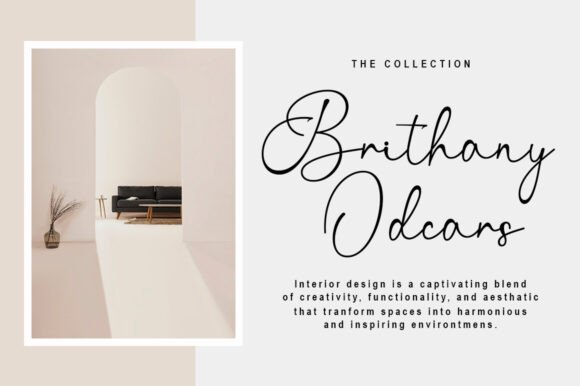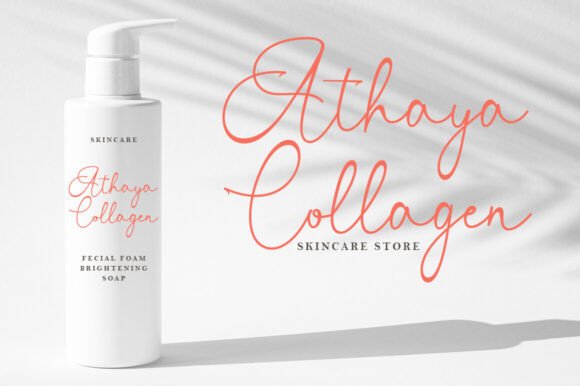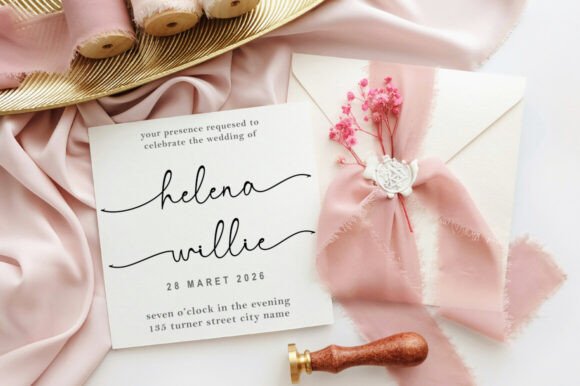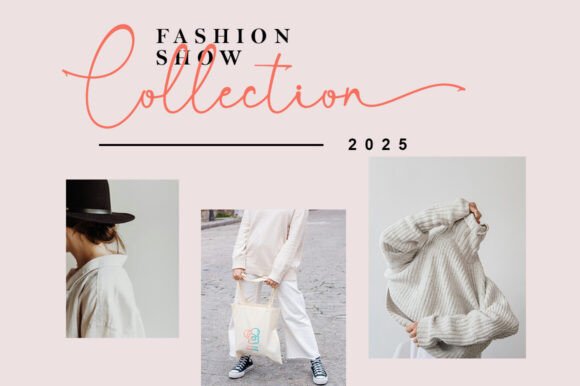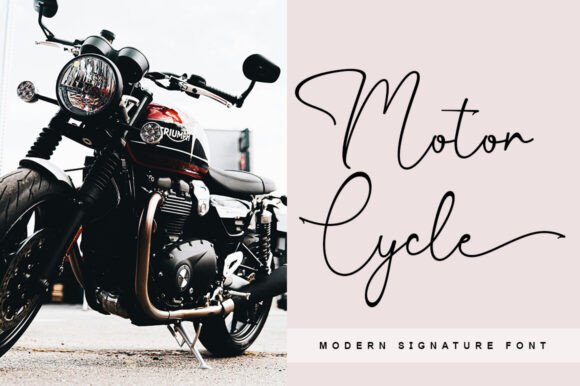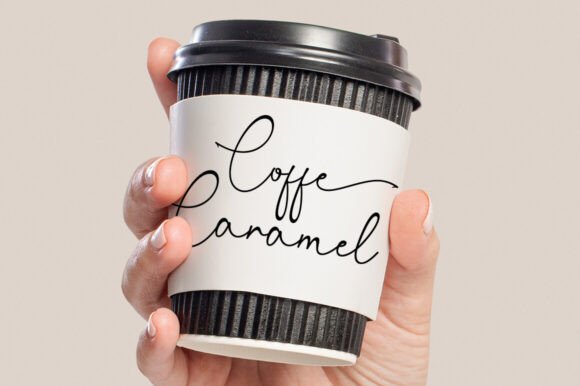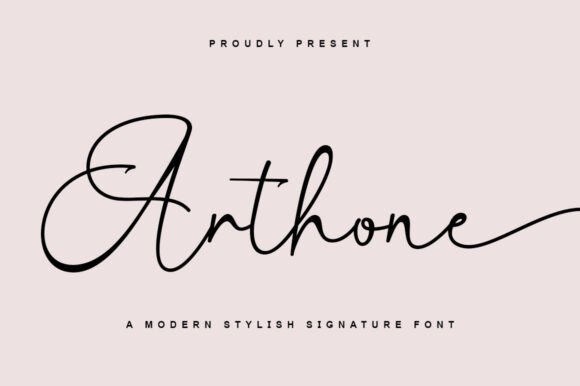
Introducing Arthone Font: The Elegant Handwritten Script for Personalized Designs
In the world of typography, a font can make all the difference in the aesthetic and feel of a design project. For those seeking a touch of elegance and personality, Arthone Font is an exceptional choice. This beautiful handwritten script font is designed to bring a warm, inviting, and refined atmosphere to various design elements, making it perfect for crafters and designers alike.
The Unique Charm of Arthone Font
Arthone Font is inspired by the authenticity of handcrafted strokes, offering a natural handwritten feel that sets it apart from more traditional fonts. Each character in Arthone is meticulously crafted to showcase uniqueness in every curve and stroke, creating a relaxed yet sophisticated ambiance. This distinctive quality makes Arthone an excellent choice for designers looking to infuse their projects with a personal touch.
Ideal Applications for Arthone Font
Arthone’s versatility and charm make it suitable for a wide range of design projects. Some of the ideal applications for this elegant font include:
- Wedding Invitations: Add a touch of romance and elegance to your wedding invitations with Arthone Font, making them truly unforgettable.
- Greeting Cards: Whether it’s a birthday, anniversary, or holiday greeting, Arthone brings a warm and personal feel to your cards.
- Brand Logos: For businesses looking to establish a personal and approachable brand identity, Arthone can help create a logo that stands out.
- Design Elements: From packaging designs to social media graphics, Arthone can add a refined and welcoming touch to any design element.
Why Choose Arthone Font?
There are several reasons why Arthone Font stands out as a top choice for designers and crafters:
- Elegant and Personal: Arthone offers the perfect blend of elegance and personality, making your designs both refined and unique.
- Handwritten Feel: The font’s natural handwritten strokes provide a warmth and authenticity that digital fonts often lack.
- Versatility: Arthone can be used across various design projects, from personal stationery to professional branding.
- Easy to Read: Despite its elegant and cursive nature, Arthone remains clear and easy to read, making it practical for a range of applications.
Tips for Using Arthone Font Effectively
To maximize the impact of Arthone Font in your designs, consider the following tips:
- Pair with Complementary Fonts: For body text, pair Arthone with a clean, sans-serif font to create contrast and enhance readability.
- Adjust Letter Spacing: For a more natural look, slightly adjust the letter spacing to mimic handwriting.
- Use in Moderation: While Arthone is elegant, using it sparingly can make it more impactful. Consider using it for headings or key messages.
- Experiment with Colors: Arthone looks stunning in a variety of colors, but for a classic look, stick with deep, rich tones that enhance its elegance.
Arthone Font is a beautiful, elegant, and highly versatile handwritten script font that can add a personal touch to any design project. Its unique charm, combined with its warmth and refined atmosphere, makes it an excellent choice for designers and crafters looking to create memorable and impactful designs. Whether you’re working on wedding invitations, brand logos, or greeting cards, Arthone Font is sure to bring your designs to life with its distinctive and inviting style.
Discover the beauty of Arthone Font and let it be the perfect companion for your next design project, bringing elegance, personality, and a human touch to your creations.